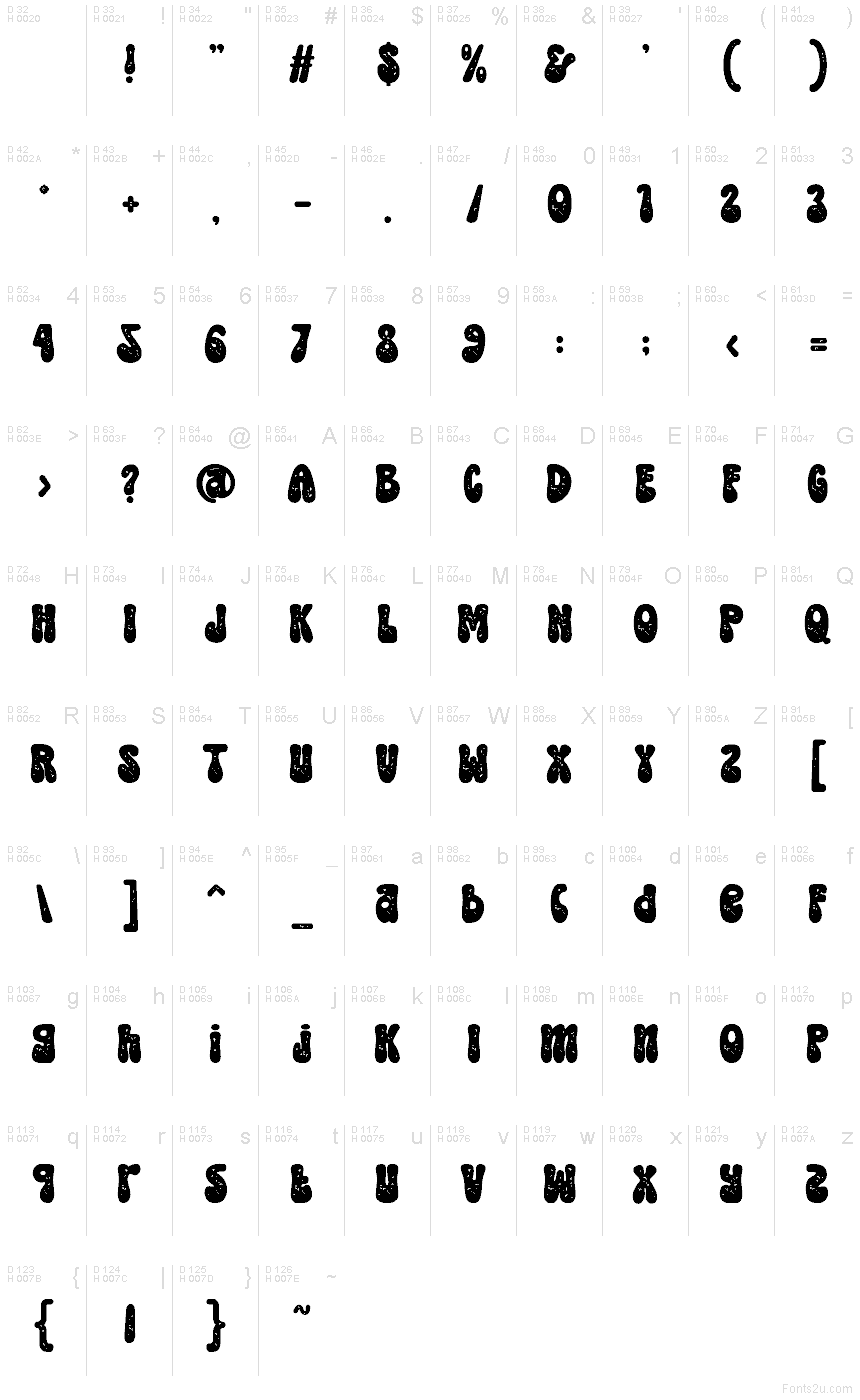
Stick Figure One Texture
Stick Figure One Texture font by PutraCetol Studio is a glossy, groovy display type with both retro and playful character. Its informal and eroded texture resembles bubble-style typography resulting in a condensed bold font with vintage appeal perfect for casual graphic designs that pop.
Typical uses include eye-catching headings, magazine quotes or titles, posters, invitations, social media captions, greeting cards. Enjoy its free usage on digital products like websites or mobile apps. Great for kids-related materials such as book covers to make them more fun too!